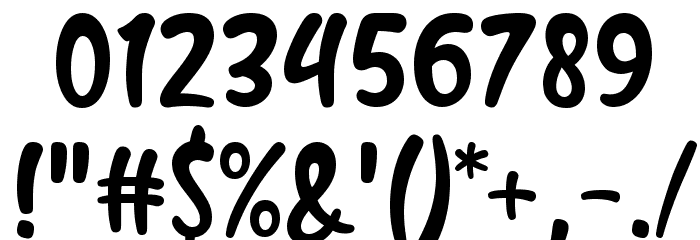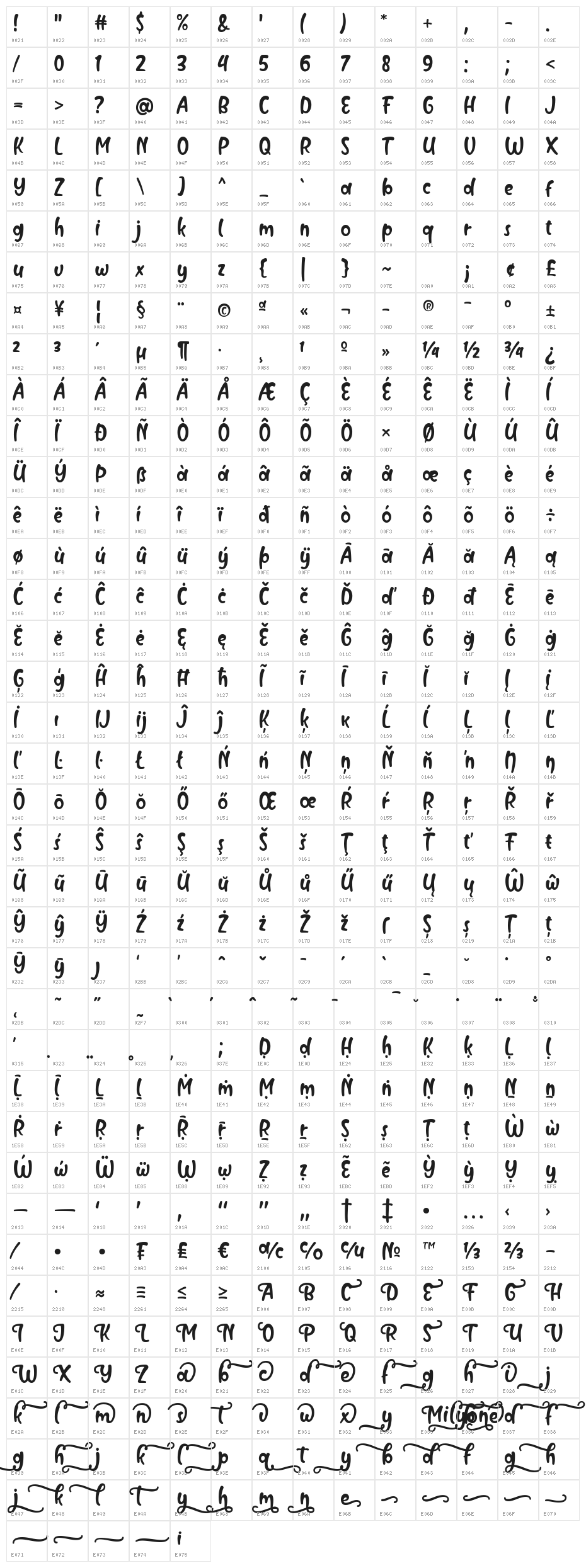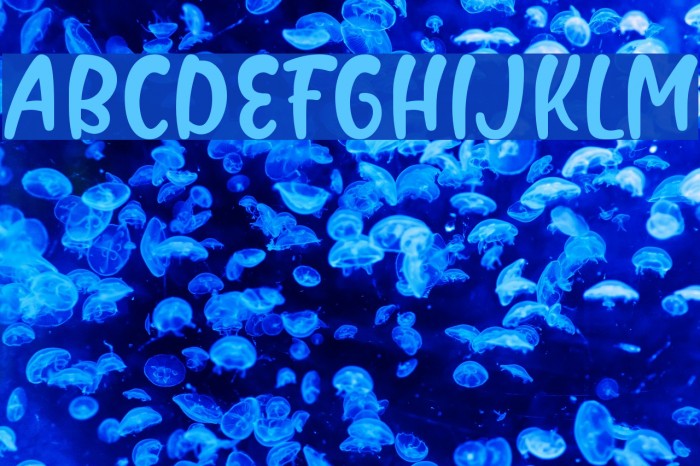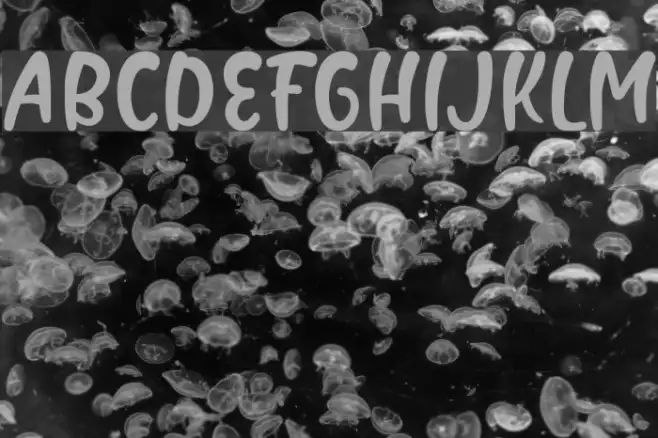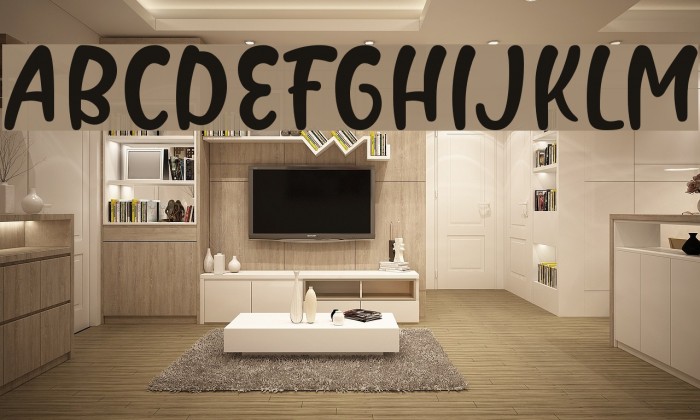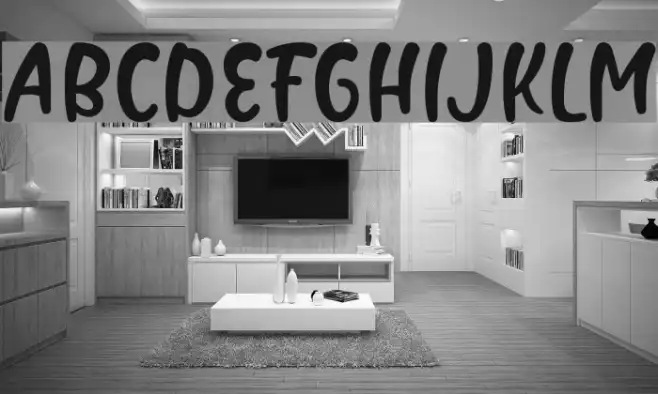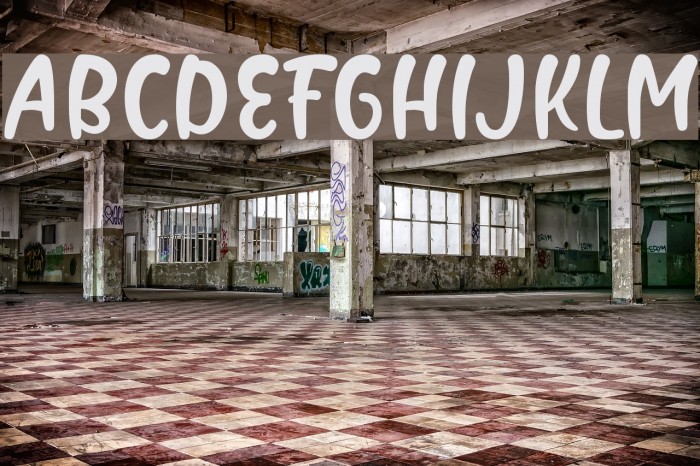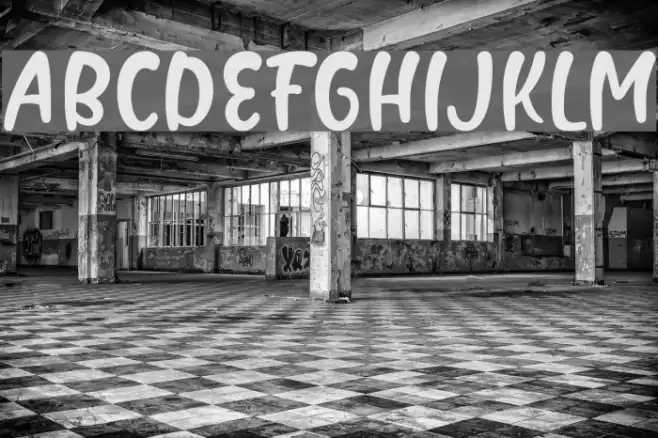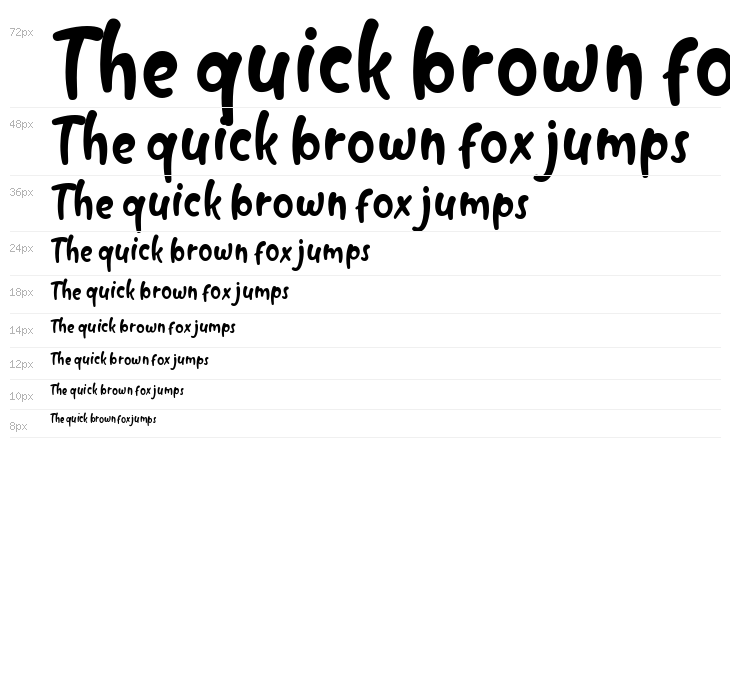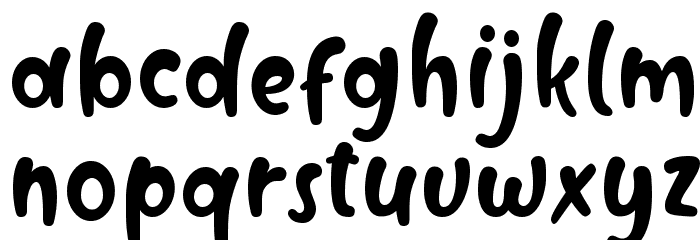
Milyone Font
Milyone Description
This playful and bold font features rounded, thick strokes that give it a friendly and approachable appearance. The characters are slightly irregular, adding a hand-drawn feel that enhances its charm. The uppercase letters are tall and slightly narrow, while the lowercase letters maintain a consistent height, creating a harmonious balance. Numbers and special characters are designed with the same playful style, ensuring uniformity across all elements. The font's overall design is casual yet impactful, making it suitable for a variety of creative projects.
| Proposed Projects | Ideal for children's books, playful branding, greeting cards, and social media graphics. |